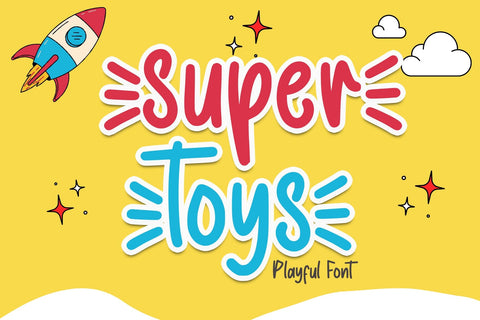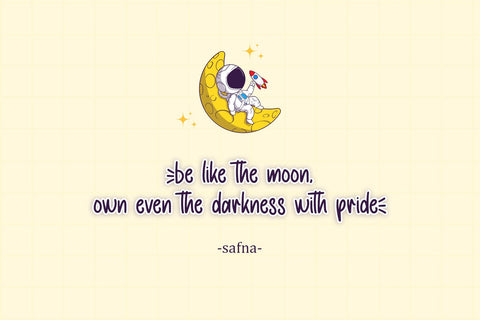
Super Toys - Playful Font
Super Toys is a cute and quirky display font. It will add an incredibly joyful touch to your designs. Add this beautiful display font to each of your creative ideas and notice how it makes them stand out!